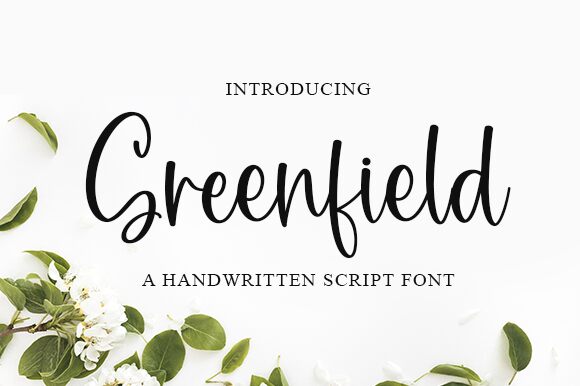
Greenfield
Greenfield, crafted by the artisans at Graphix Line Studio, stands out as a semi-light calligraphy font that embodies grace and finesse. Its carefully designed strokes boast a harmonious balance between fluidity and structure, ensuring that each character flows seamlessly into the next.
The inclusion of stylish alternates and ligatures enriches Greenfield's versatility, allowing it to adapt beautifully across various creative endeavors. Whether you're designing wedding invitations, branding materials, or elegant packaging, Greenfield is poised to elevate your project with its distinctive charm and sophistication.